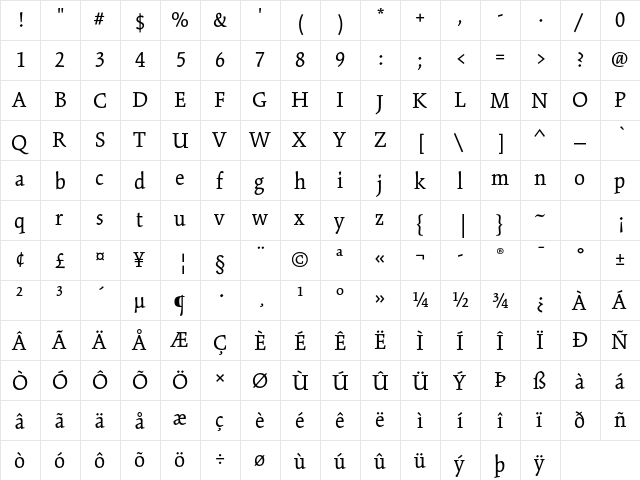
Kinesis Std Regular Font Preview
Kinesis Std Regular
Kinesis Std Regular Font Details
| Designer | Mark Jamra |
Design Context for Kinesis Std Typeface
Kinesis Std is a composed and adaptable typeface that performs quietly and consistently across a wide range of design contexts.